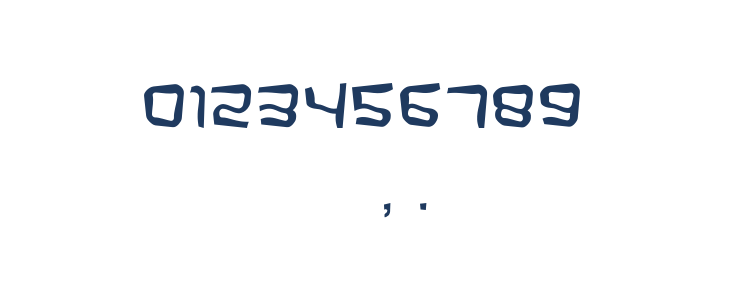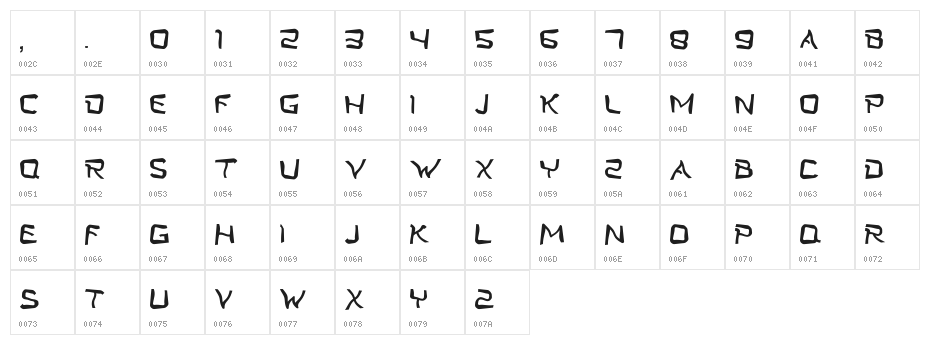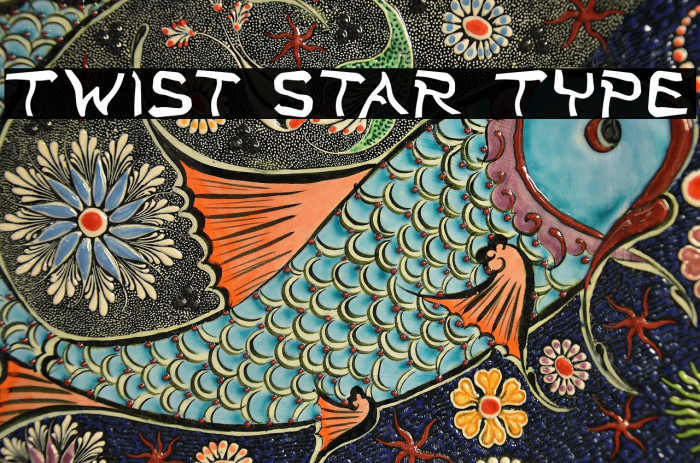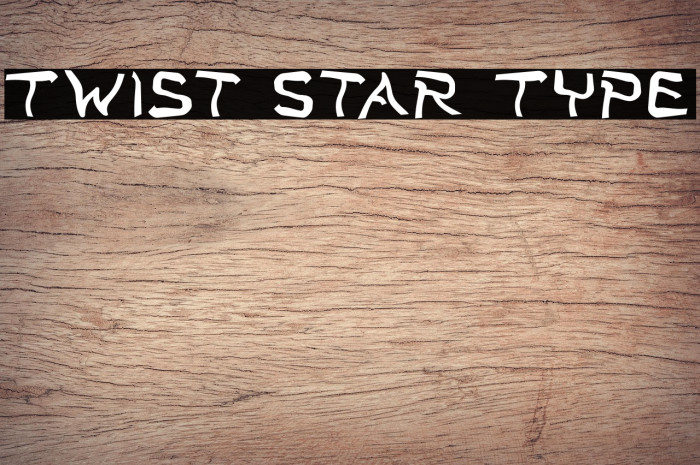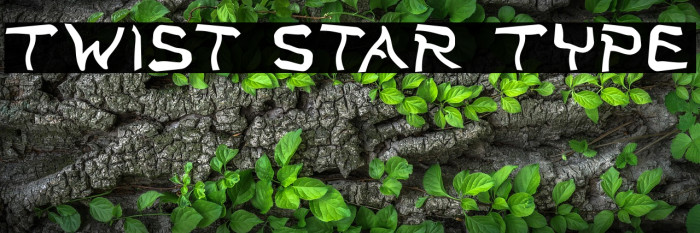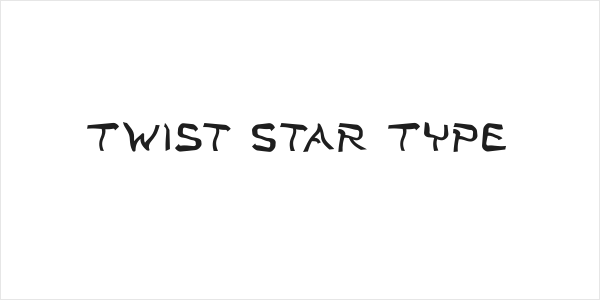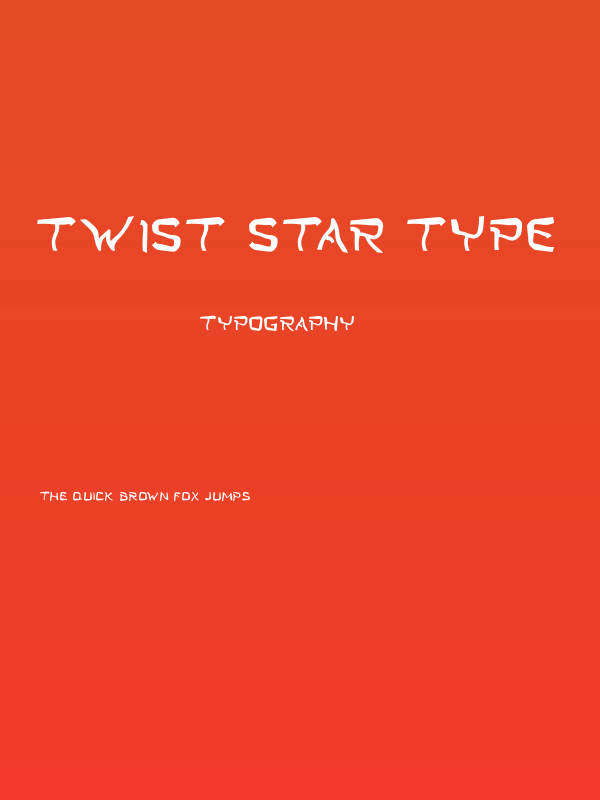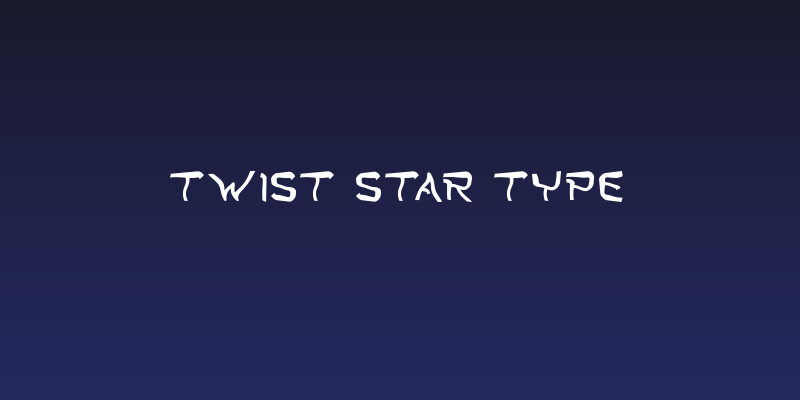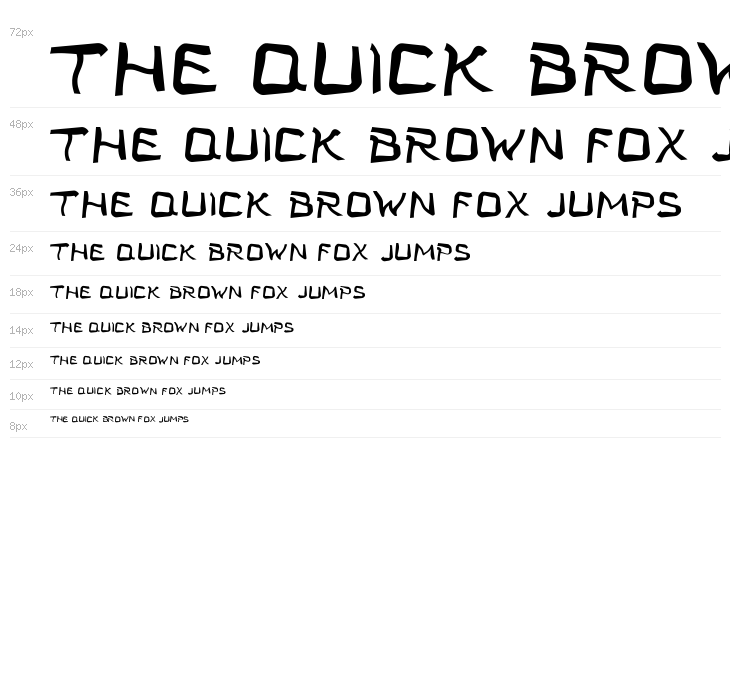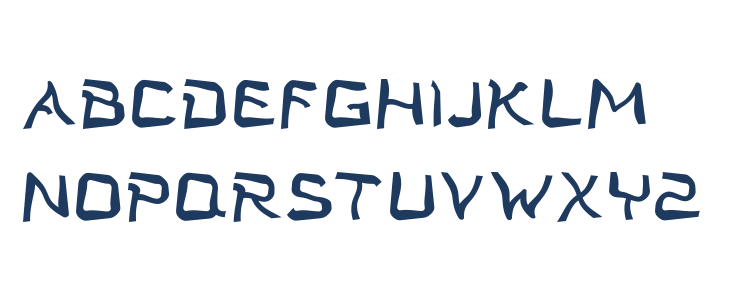
Twist Star Type Font
Twist Star Type Description
This font features a dynamic and edgy design, characterized by sharp angles and a slightly twisted appearance that gives it a unique, star-like quality. The uppercase letters are bold and assertive, while the lowercase letters maintain a consistent style, ensuring readability. The numerals are distinct and maintain the same angular aesthetic, making them stand out. This font's special characters, such as punctuation marks, are designed to complement the overall style, adding to its cohesive look. The font's design is both modern and slightly futuristic, making it suitable for projects that require a bold and distinctive typeface.
| Overall Style | Modern, Futuristic |
| Proposed Projects | Ideal for branding, posters, album covers, and any project requiring a bold, standout typeface. |